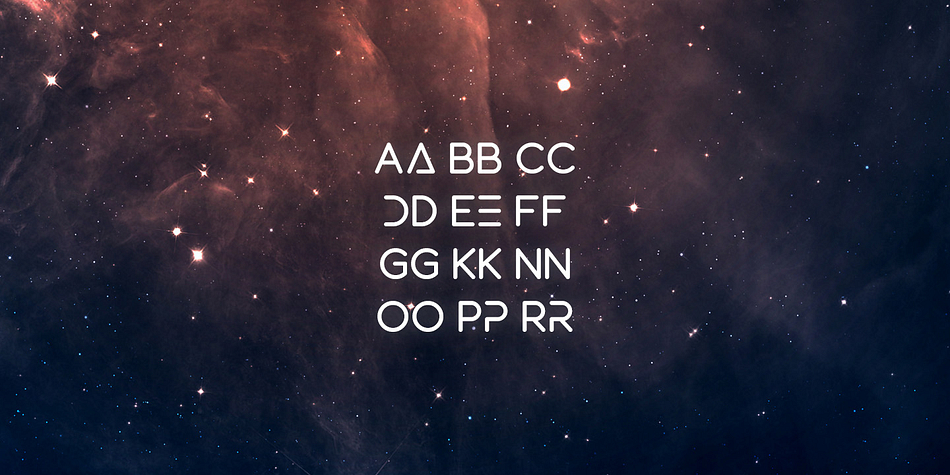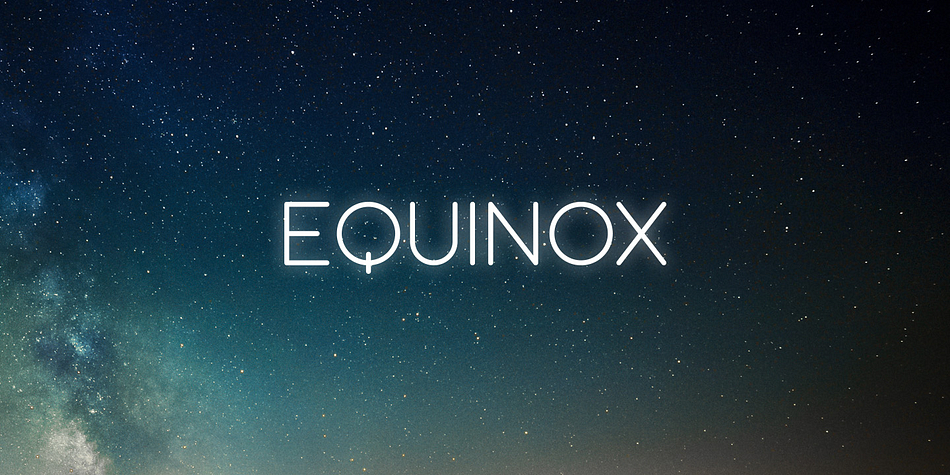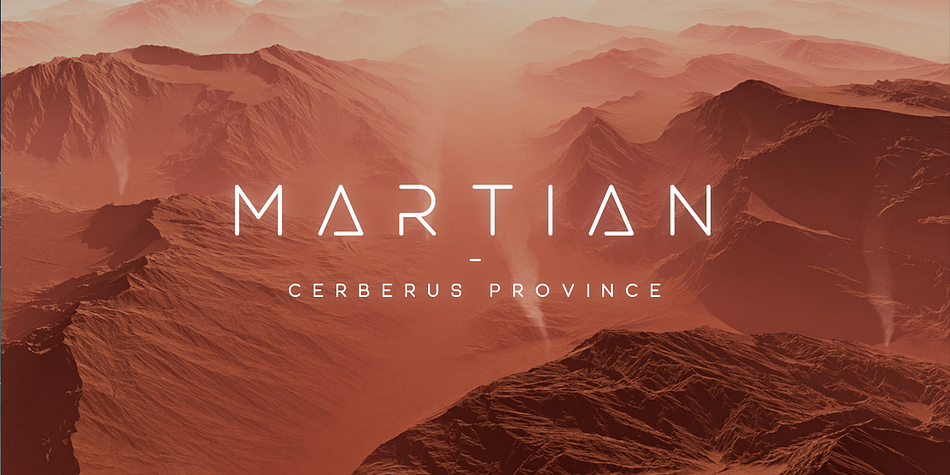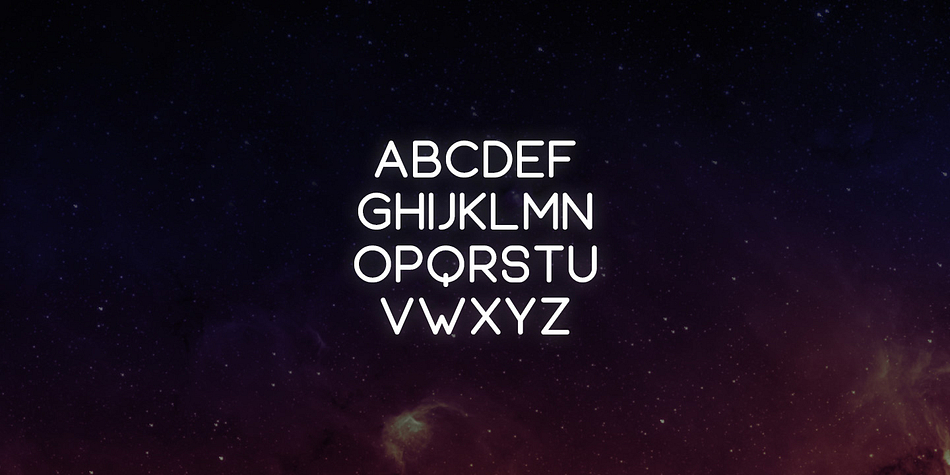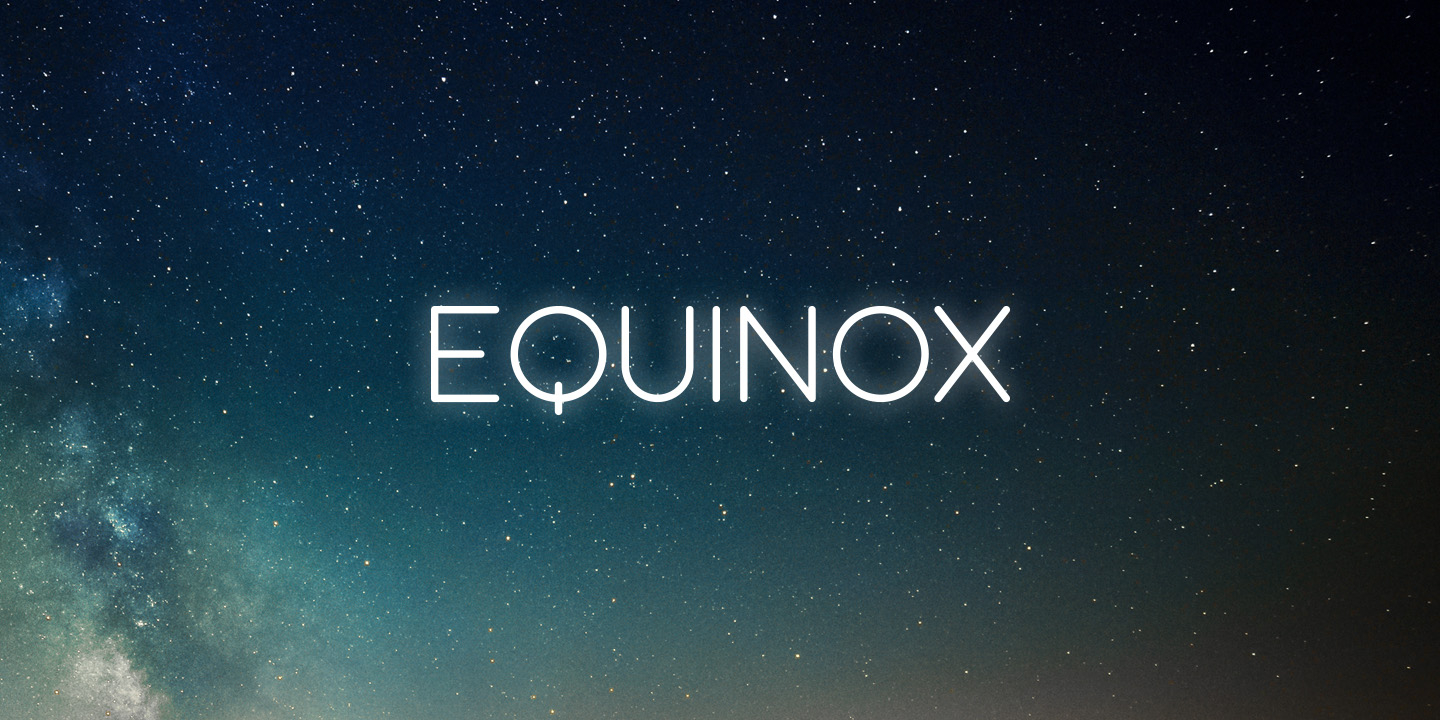
Equinox is a display sans font family. This typeface has two styles and was published by Tugcu Design Co.
Equinox is a modern, minimal and clean font family.
It’s not as futuristic as my other sci-fi fonts but it’s much more versatile and can be used for non sci-fi purposes as well.